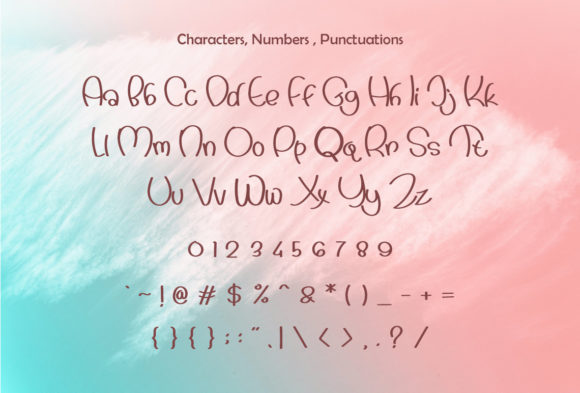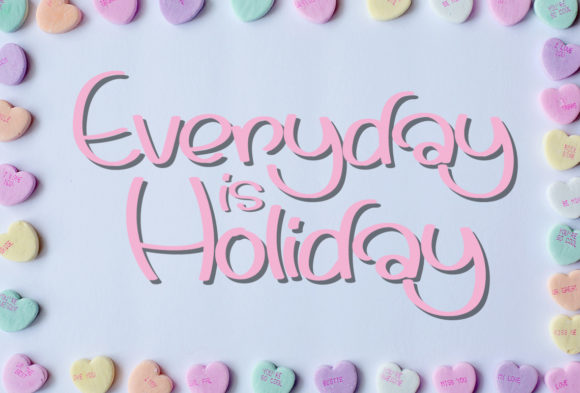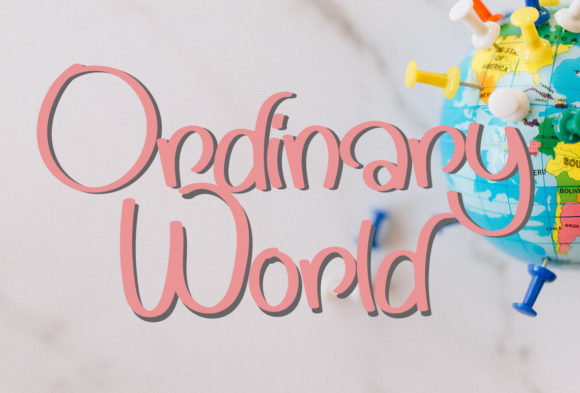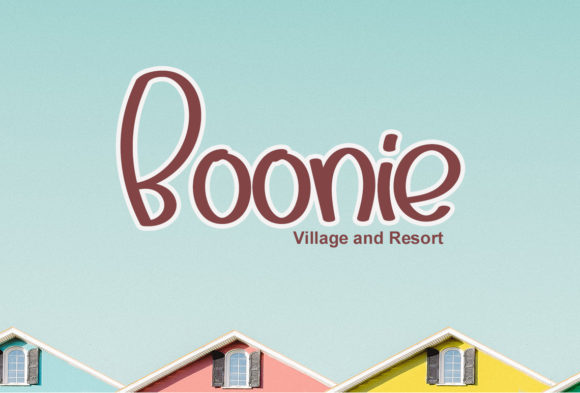
Back Time Font
About Back Time Font
Back Time is a quirky and playful handwritten font. This gentle font will look gorgeous on a variety of design ideas. It looks stunning on wedding invitations, thank you cards, quotes, greeting cards, logos, business cards and every other design which needs a handwritten touch.